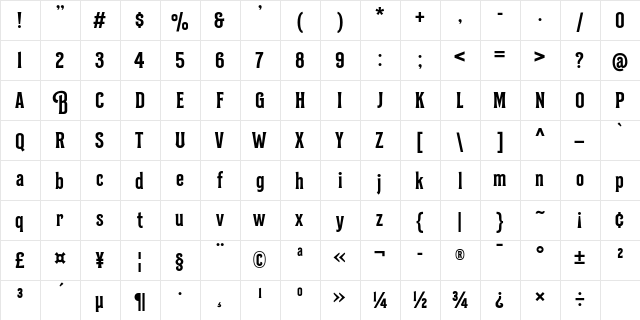
Bilcase Demo Demo
| Foundry | Ilham Herry Type Supply |
| Designer | Ilham herry |
Design Context for Bilcase Demo Typeface
Bilcase Demo offers clean, dependable letterforms without strong stylistic allegiance, making it a practical choice for designers who need flexibility.